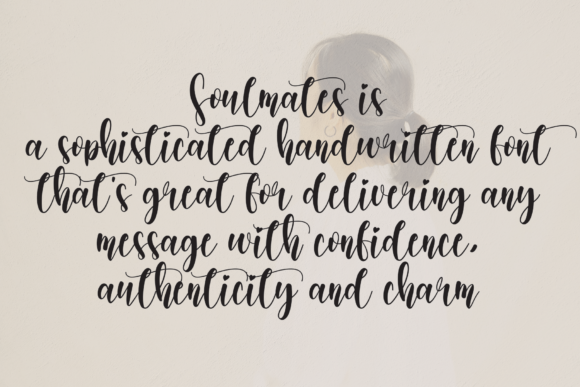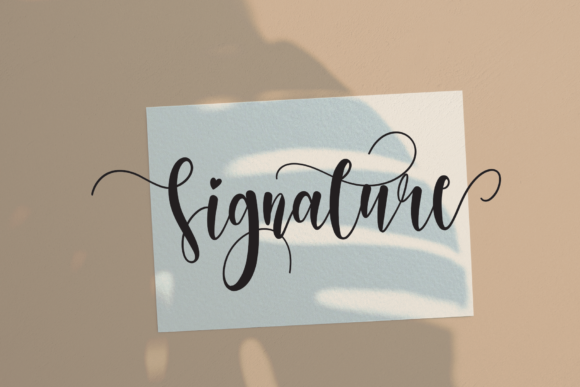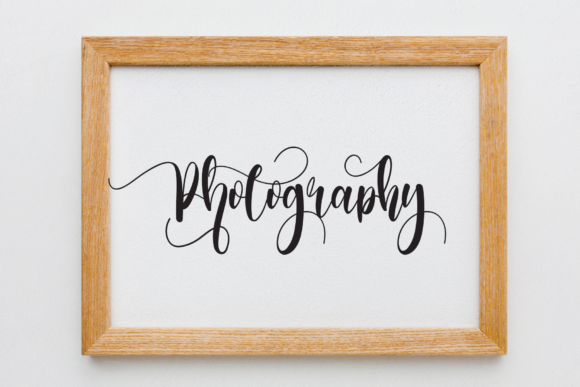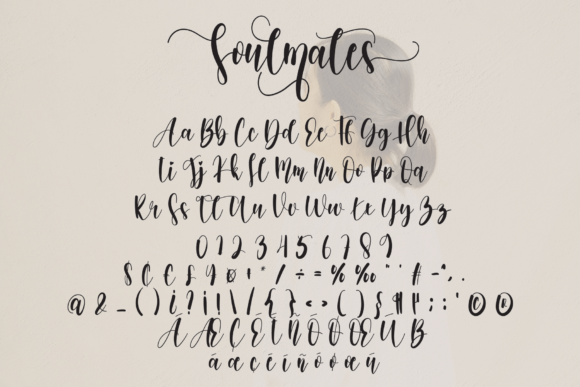
Soulmates Font
About Soulmates Font
Soulmates is a delicate and elegant handwritten font. Its distinct and well balanced letters make this font a masterpiece. Soulmates is PUA encoded which means you can access all of the glyphs and swashes with ease!